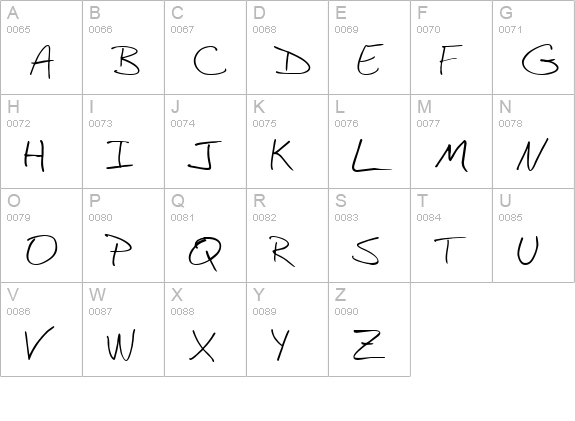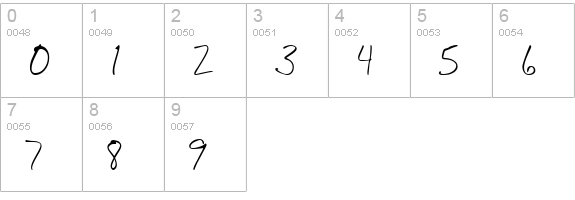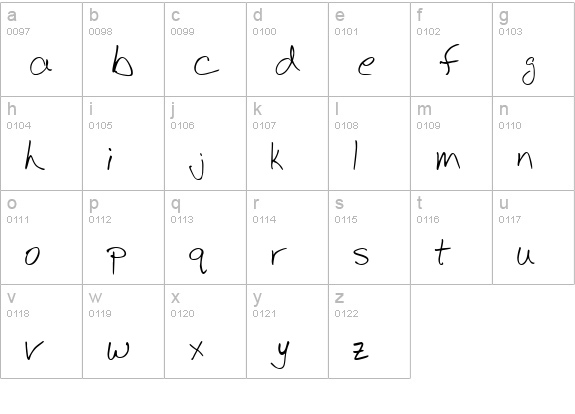
BudHand Font Details
Introducing BudHand font, a charming and versatile typeface that brings a touch of handmade warmth to any project. With its unique hand-drawn style and whimsical flair, BudHand is perfect for adding a playful and organic touch to your designs. This delightful font features a wide range of characters, including uppercase, lowercase, numbers, and punctuation, allowing you to create eye-catching text that stands out from the crowd. Best of all, BudHand font is completely free to download at FontsMarket.com! This means you can easily add this delightful typeface to your collection without breaking the bank. Whether you're working on a creative project, a branding campaign, or simply looking to add some fun to your designs, BudHand font is sure to inspire and delight. Download it today and let your creativity flourish with this charming and expressive typeface.